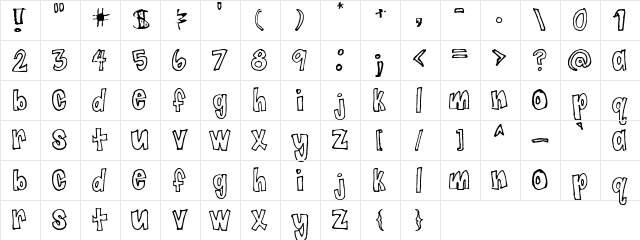
Jaggy Fries Regular
Design Context for Jaggy Fries Typeface
Jaggy Fries is a composed and adaptable typeface that performs quietly and consistently across a wide range of design contexts.
Pro Tip: Use Jaggy Fries in both headline and body roles to test its range before committing to a single application.